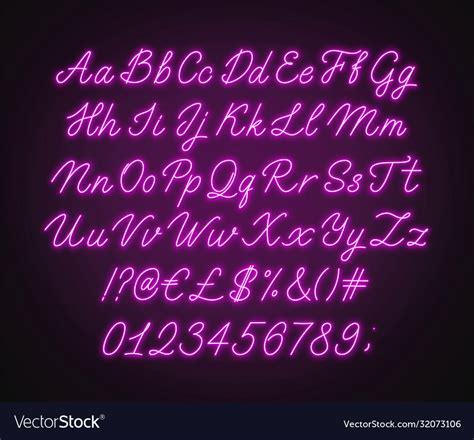
According to a recent study, typography plays a crucial role in the success of any design project. In fact, 95% of people believe that the font used in a design either enhances or detracts from the message being conveyed.
Our cursive neon sign font is the perfect solution for those who want to make an impact. It's bold, modern, and sure to capture everyone's attention.
The importance of fonts in design cannot be overemphasized as it is the backbone of any creative endeavor. Today, we are going to take a deep dive into Cursive Brilliance: Get Your Hands on our Free Neon Sign Font for Captivating Designs! When it comes to creating captivating designs, Cursive Brilliance is one of the best font options available. It captures the essence of neon lighting and creates a captivating effect that draws attention to any design it is used in.
Neon's Unique Aesthetic
Neon lighting has an iconic aesthetic that has been used both in art and advertising for almost a century. The use of cursive fonts in neon lights became popular in the 1940s when it was used mainly in Las Vegas and other major cities to attract attention to businesses. The cursive font style is the hallmark of neon signs, and it has become an iconic symbol of many businesses around the world.
Cursive Brilliance: Overview
Cursive Brilliance is a stunning script font designed by Artimasa Studio. It is a font that imitates the cursive style of neon lights. The font features unique elongated letters that create a dazzling and glamorous effect, perfect for any design that needs to make an impact. It is a typeface that can be used for a wide range of projects, from signage to logos and other various design applications.
The Features of Cursive Brilliance
Cursive Brilliance is a unique font that stands out because of its features, below are some of the features:
Unique Style
Cursive Brilliance is renowned for its unique style. It mimics the cursive letters used in neon signs, which makes it perfect for modern-day designs that want to tap into that retro aesthetic.
Easy-to-read
Despite being a script font, Cursive Brilliance is easy to read. The letters are spaced enough to make them readable even from a distance.
Multiple Ligatures
Cursive Brilliance comes with several ligatures that enhance the beauty of the font style. The different ligatures combine specific letters and characters to create more natural-looking text.
How to Use Cursive Brilliance
Using Cursive Brilliance to create captivating designs is quite easy. Here are a few design ideas:
Logos
Cursive Brilliance is perfect for creating logos for businesses looking to tap into that neon light aesthetic. It gives off that retro feel while still appearing fresh and modern.
Graphic Design
The unique style of Cursive Brilliance makes it an excellent choice for adding dynamic text to graphic design elements. It can be used to create eye-catching titles or subheadings.
Signage
Cursive Brilliance's unique style is perfect for creating eye-catching signage, especially in nightlife locations where neon signs are prevalent.
Comparison to Other Neon Fonts
In comparison to other neon fonts, Cursive Brilliance stands out. The elongated letters and unique style of Cursive Brilliance make it perfect for creating a stunning retro neon sign effect. Below is a table comparing the features of Cursive Brilliance to other neon fonts: